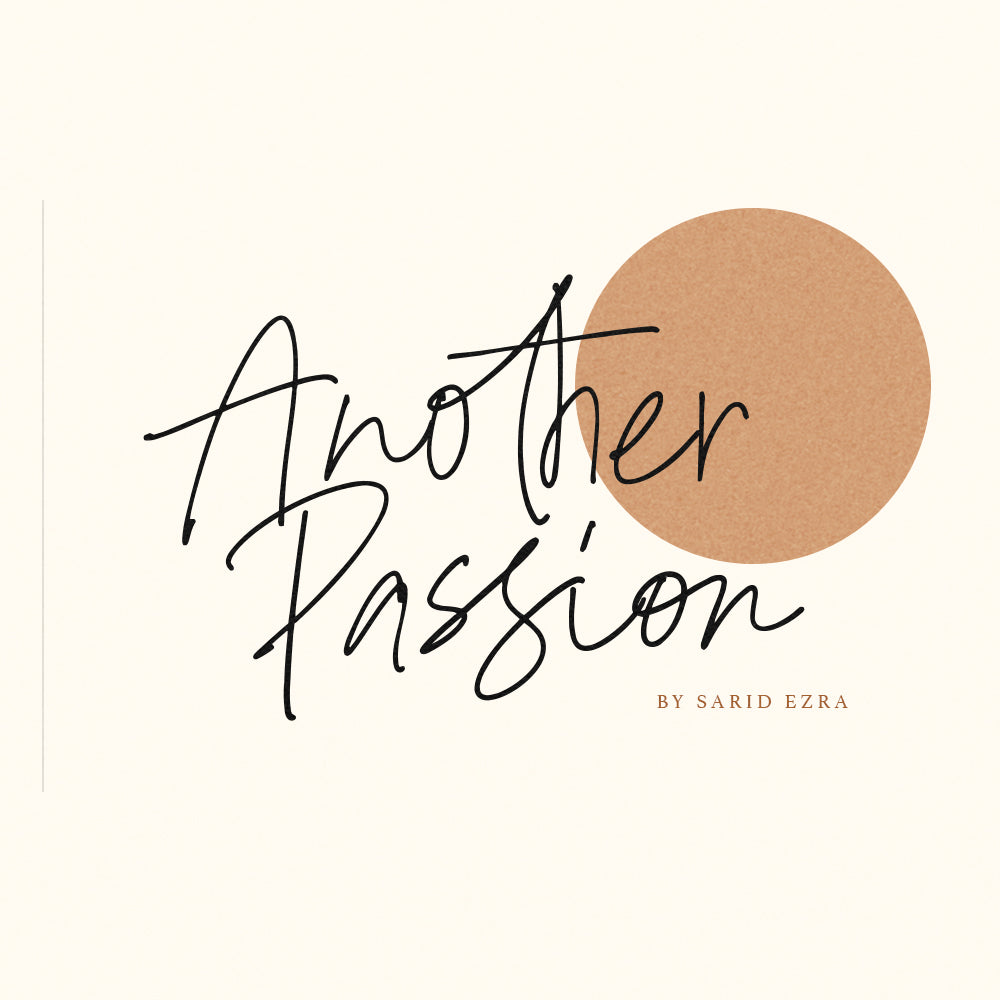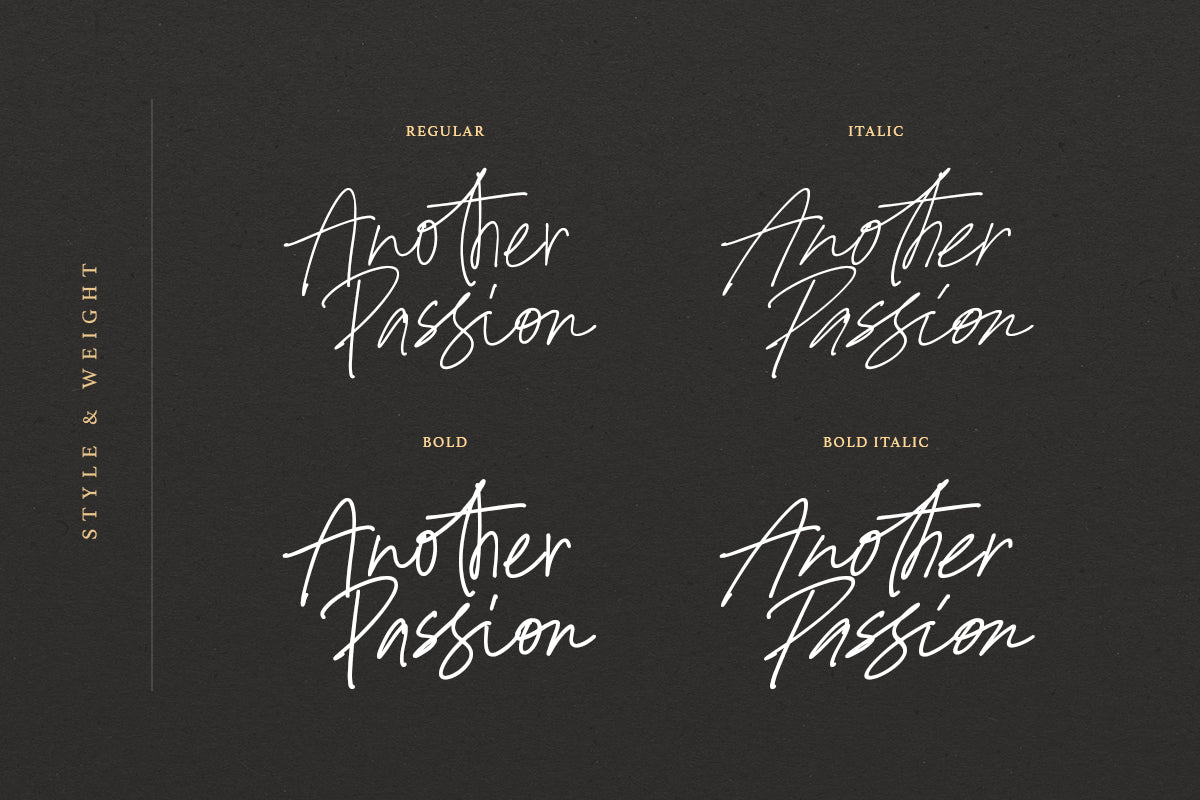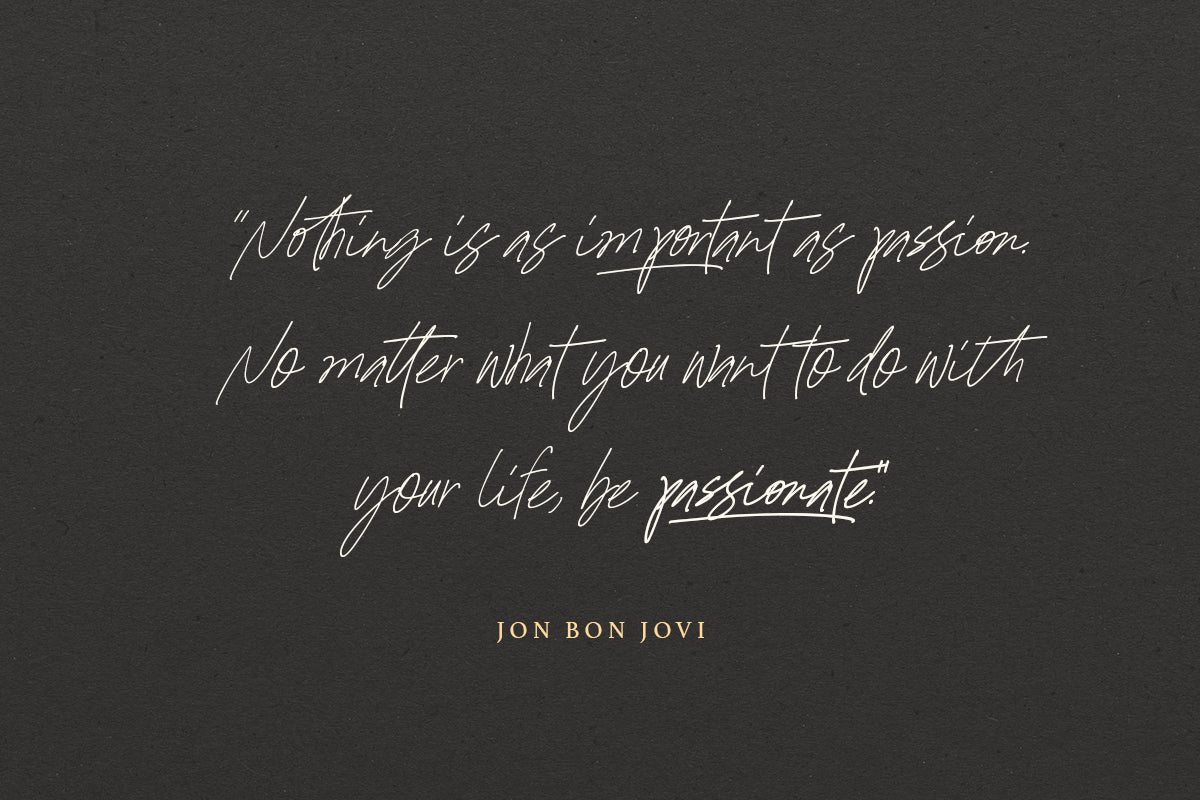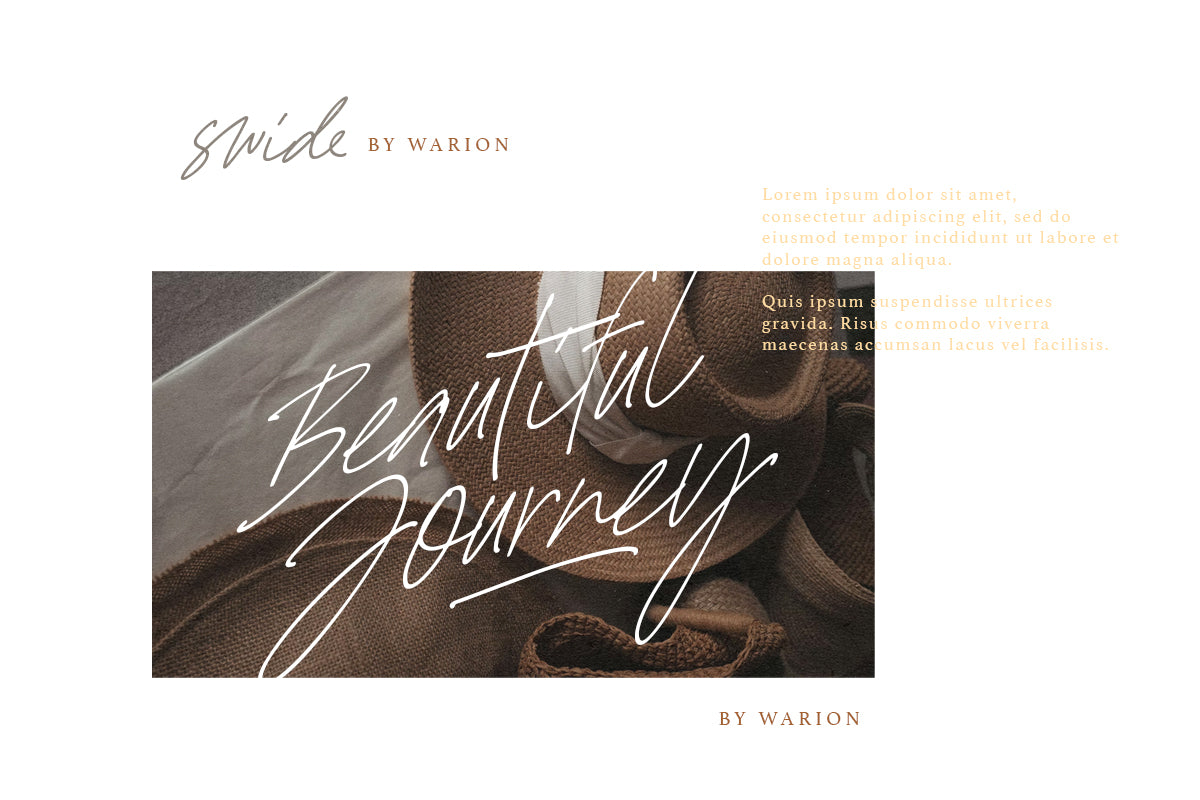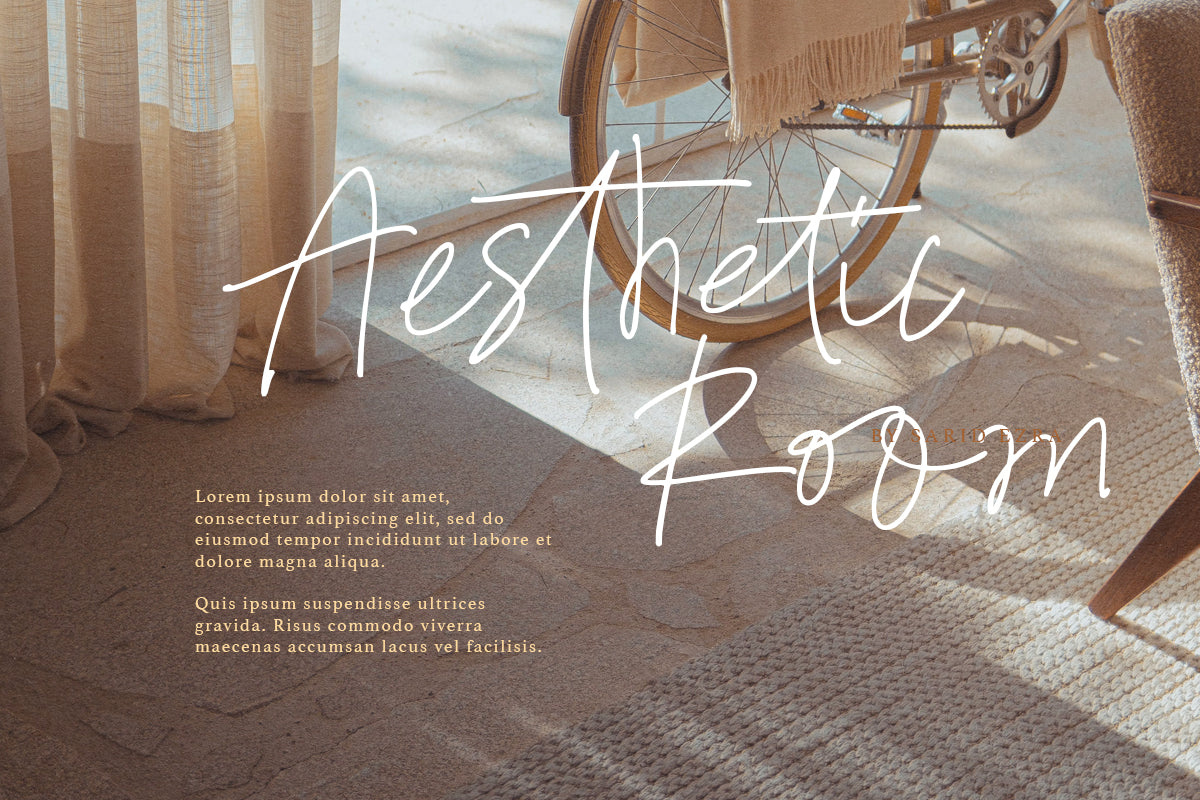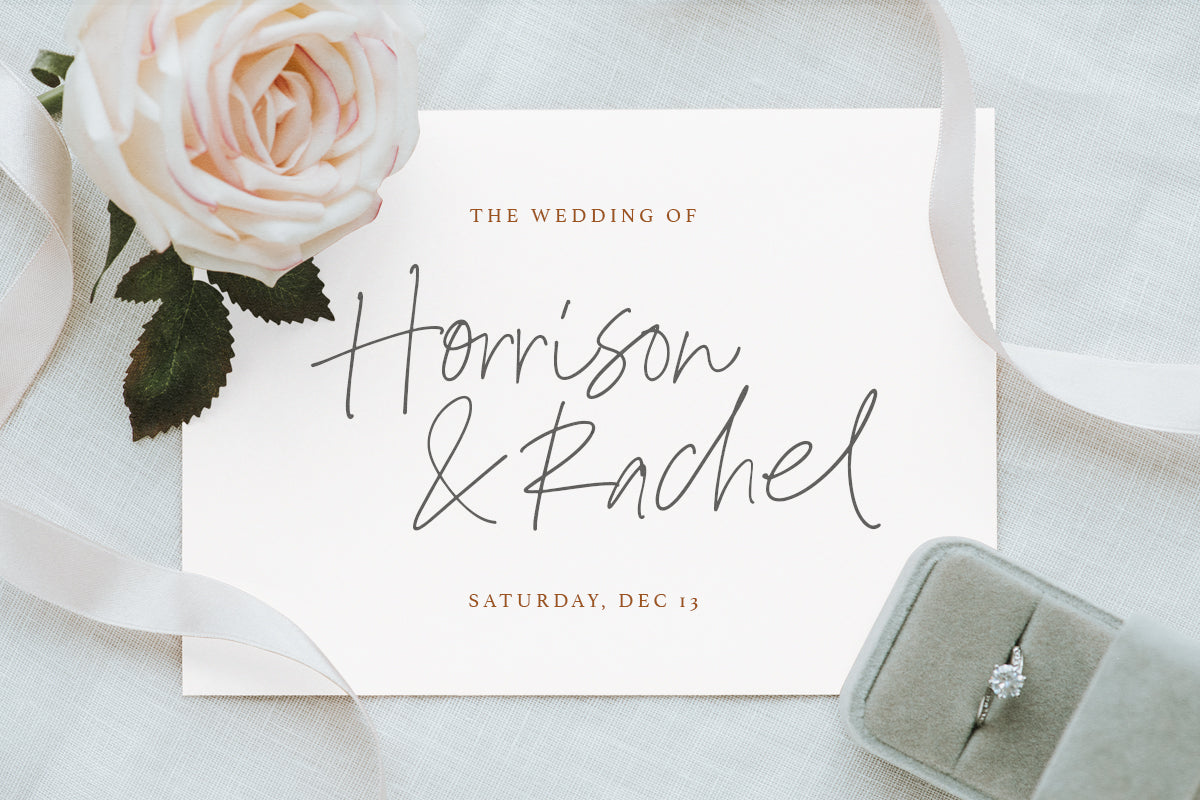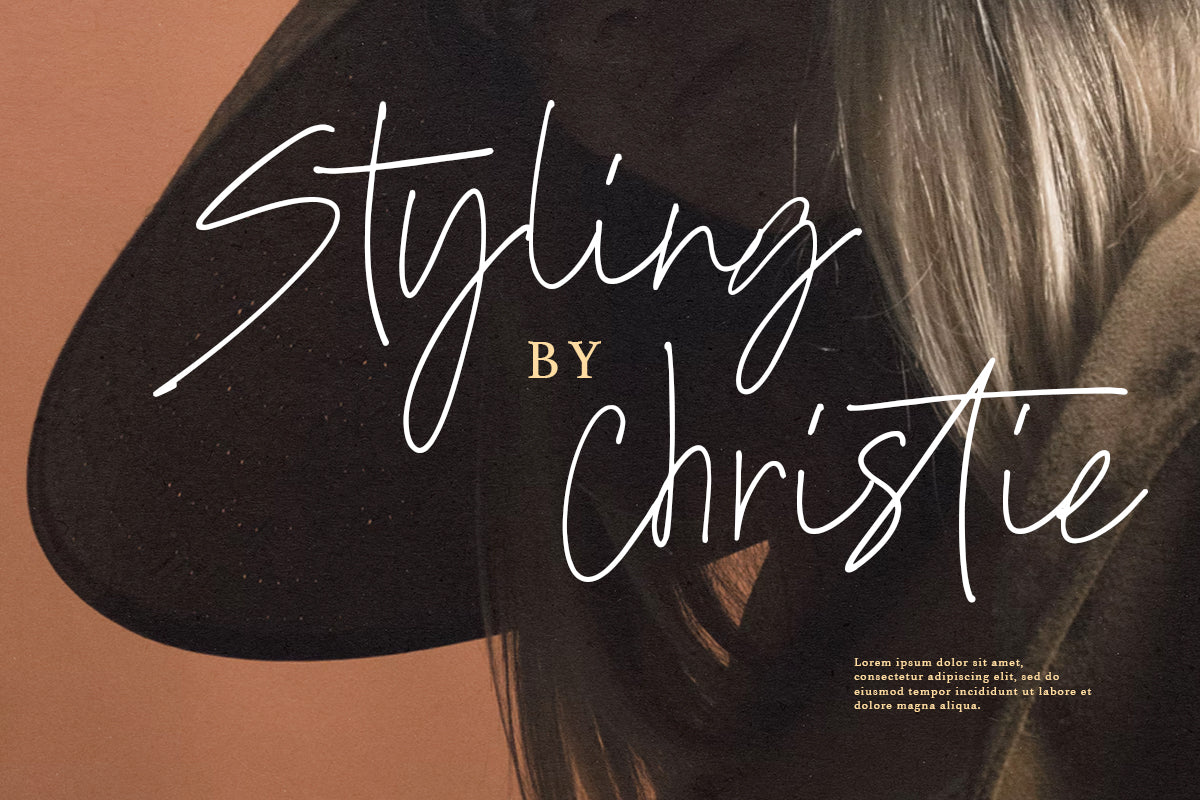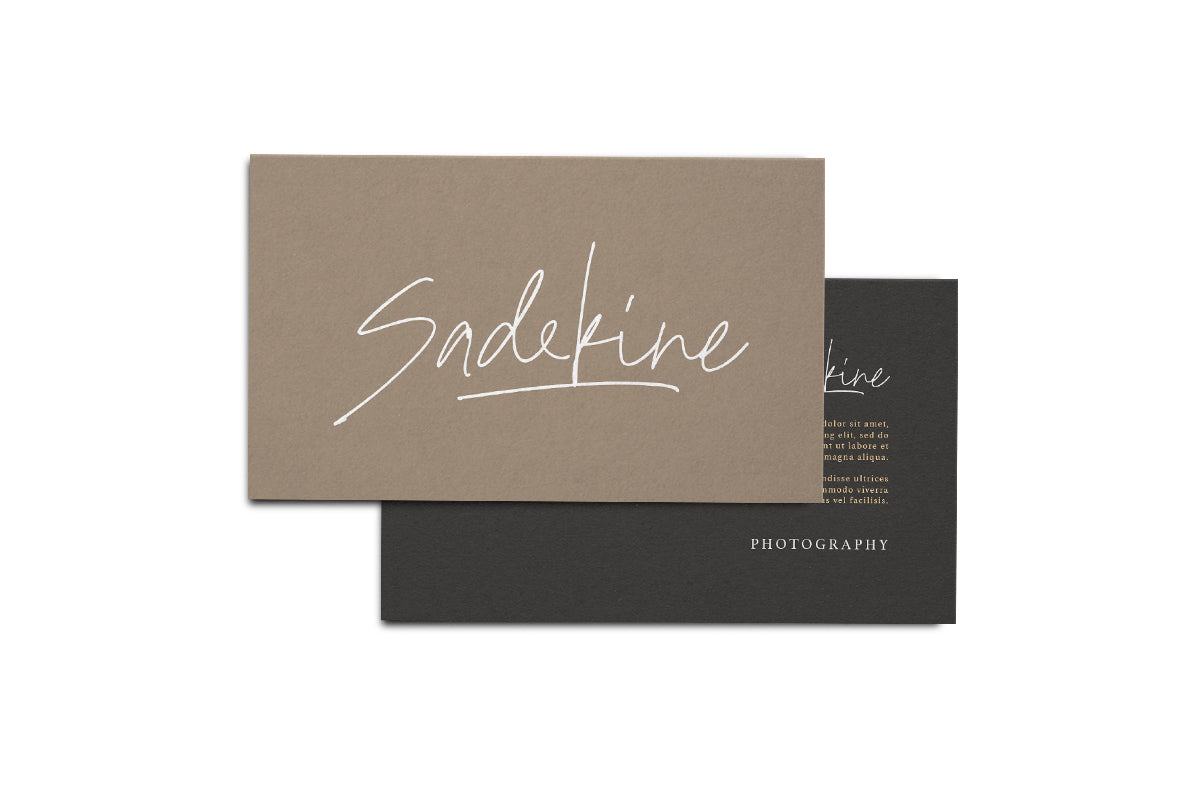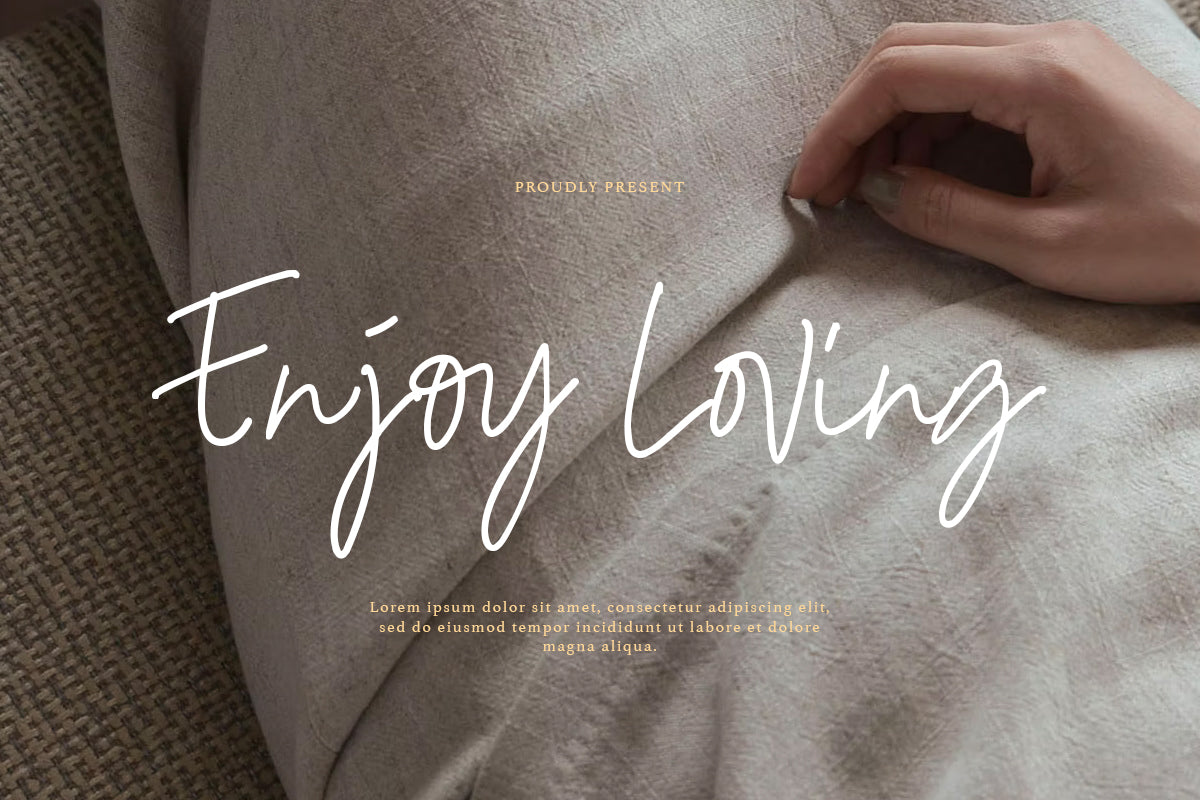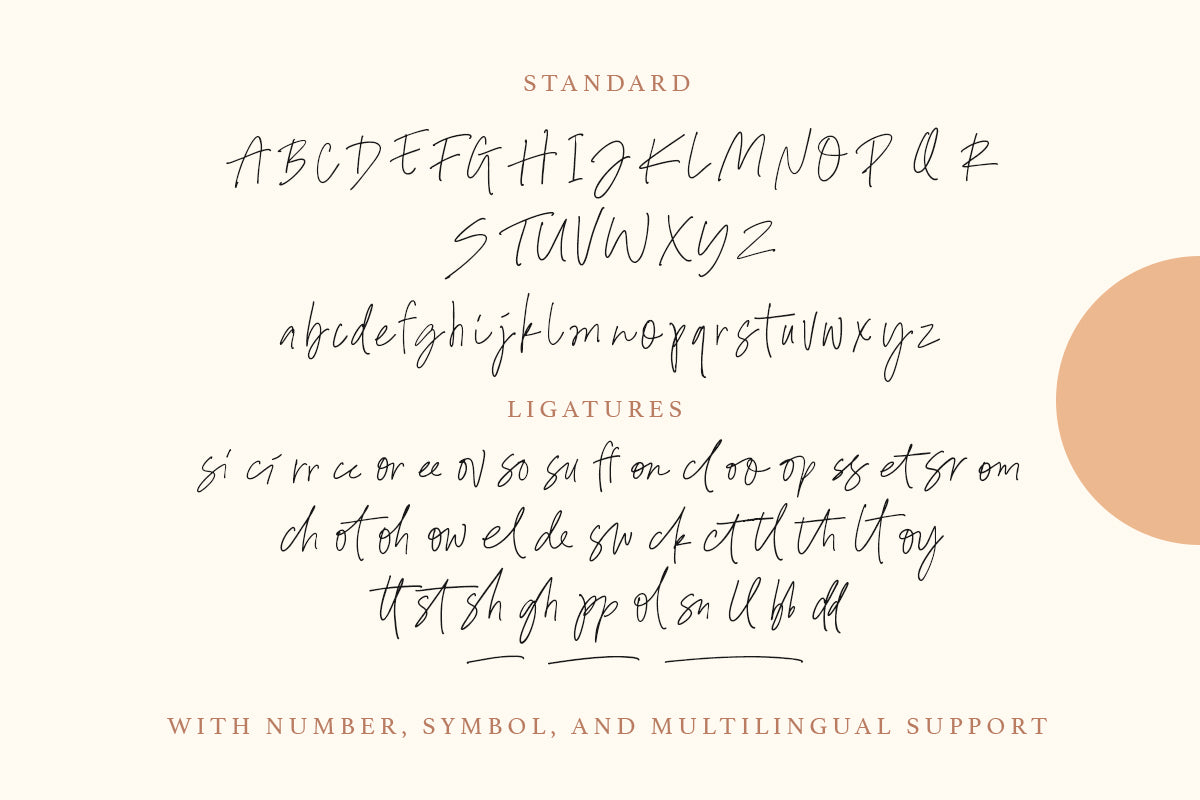
Another Passion - Handwritten Font
Another Passion Script Family includes four handwritten fonts featuring ligatures and underlines, along with italic, bold, and bold italic styles. This PUA Encoded font set is designed for various applications, including branding and design projects.